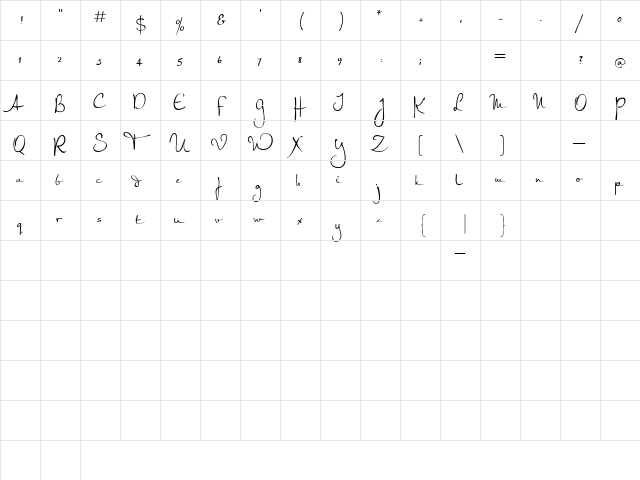
AL Charisma Regular
Design Context for AL Charisma Typeface
AL Charisma is a composed and adaptable typeface that performs quietly and consistently across a wide range of design contexts.